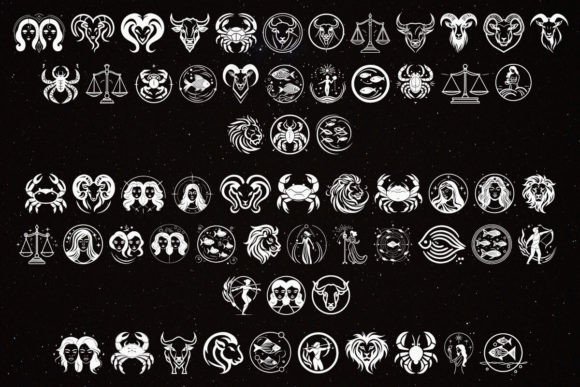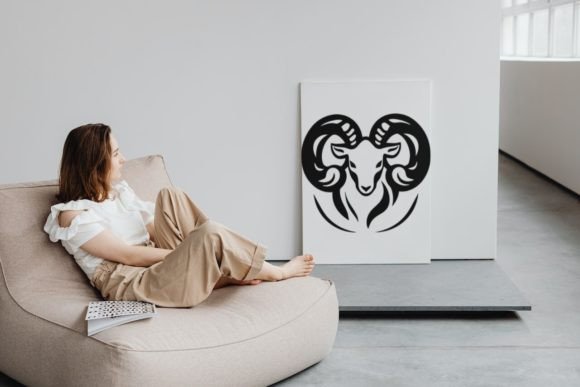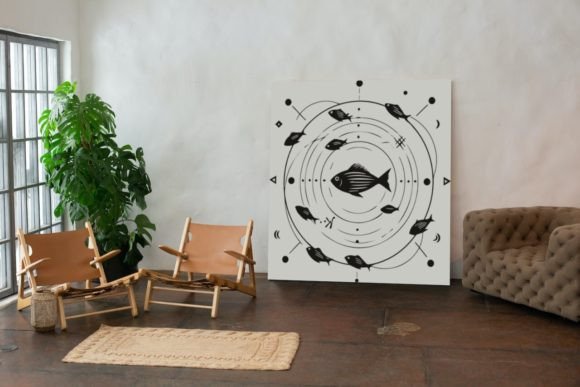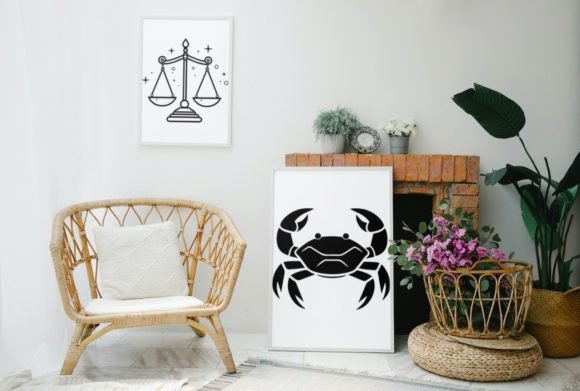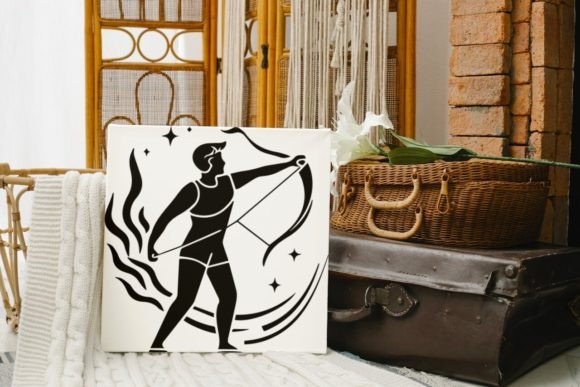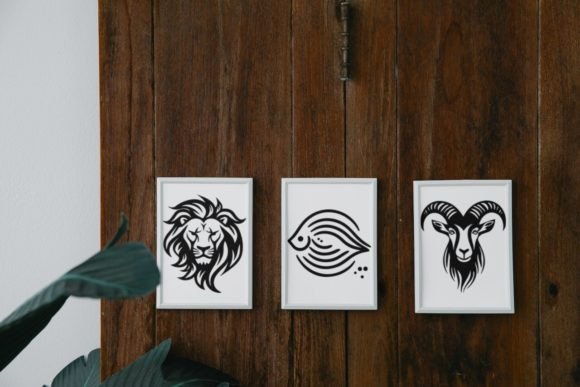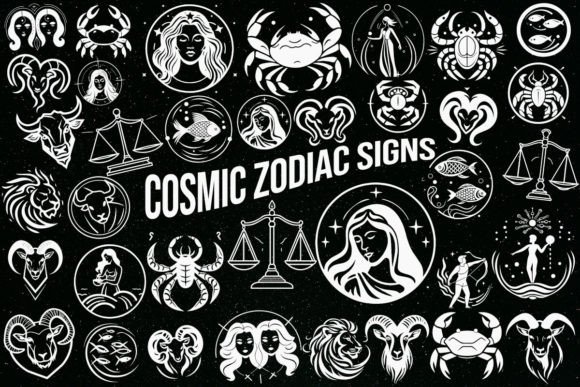
Cosmic Zodiac Signs Font: Unlock Celestial Insights and Elevate Your Design Game
Are you a designer, crafter, or astrology enthusiast looking for a unique and creative way to express yourself? Look no further than the Cosmic Zodiac Signs Font, a fascinating collection of dingbats fonts that will transport you to the celestial realm. In this article, we’ll explore the world of Cosmic Zodiac Signs, discover your destiny through the 12 star signs, and show you how to elevate your design game with these stunning fonts.
What are Cosmic Zodiac Signs?
Cosmic Zodiac Signs are a set of typographic symbols that represent the 12 star signs of the zodiac. These signs have been used for centuries to guide us in understanding our personalities, strengths, and weaknesses. With the Cosmic Zodiac Signs Font, you can now incorporate these celestial symbols into your designs, crafts, and creative projects.
Unlock Your Destiny with the 12 Star Signs
Elevate Your Design Game with Dingbats Fonts
Dingbats fonts are a type of typographic symbol that can add a touch of creativity and whimsy to your designs. With the Cosmic Zodiac Signs Font, you’ll get access to a range of dingbats fonts that feature the 12 star signs. These fonts are perfect for designers, crafters, and anyone looking to add a celestial touch to their projects.
Get Creative with 0-9, A-Z Fonts
The Cosmic Zodiac Signs Font doesn’t just stop at the 12 star signs. You’ll also get access to a range of fonts that feature numbers 0-9 and letters A-Z. This means you can create custom designs, phrases, and sentences that incorporate the celestial theme. Whether you’re designing a logo, creating a social media graphic, or crafting a handmade project, these fonts will inspire you to reach for the stars.
Font Name Cosmic Zodiac Signs Font
Author MOMAT THIRTYONE
The Cosmic Zodiac Signs Font is a unique and creative tool that will transport you to the celestial realm. With its range of dingbats fonts featuring the 12 star signs, numbers 0-9, and letters A-Z, you’ll be able to create stunning designs that showcase your personality and style. Whether you’re a designer, crafter, or astrology enthusiast, this font is sure to inspire you to reach for the stars.